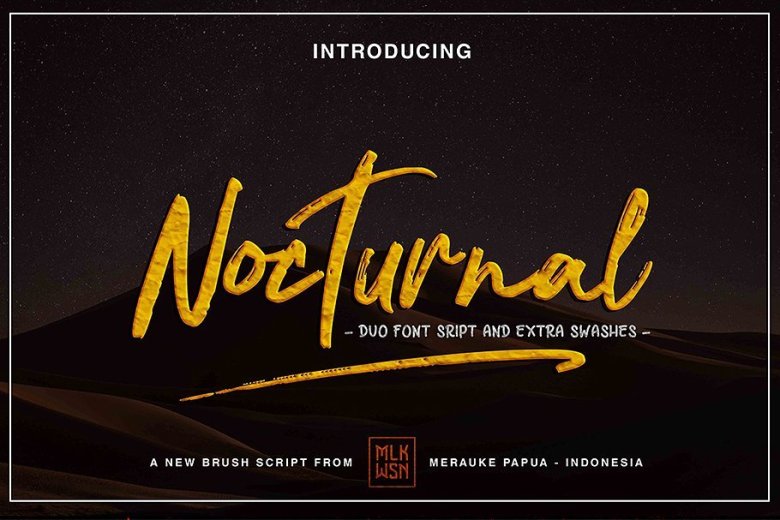
Nocturnal Brush Font
Hi designer! A new brush script font from MLKWSN studios. Introducing Nocturnal. Nocturnal consists of 2 fonts and extra swash equipped with international language Our latest fonts support all your design needs that have artificial tastes, look stylish and elegant Nocturnal is Perfect for Product Packaging,product design , label,logo,photography,invitation,branding,stationery, and any projects